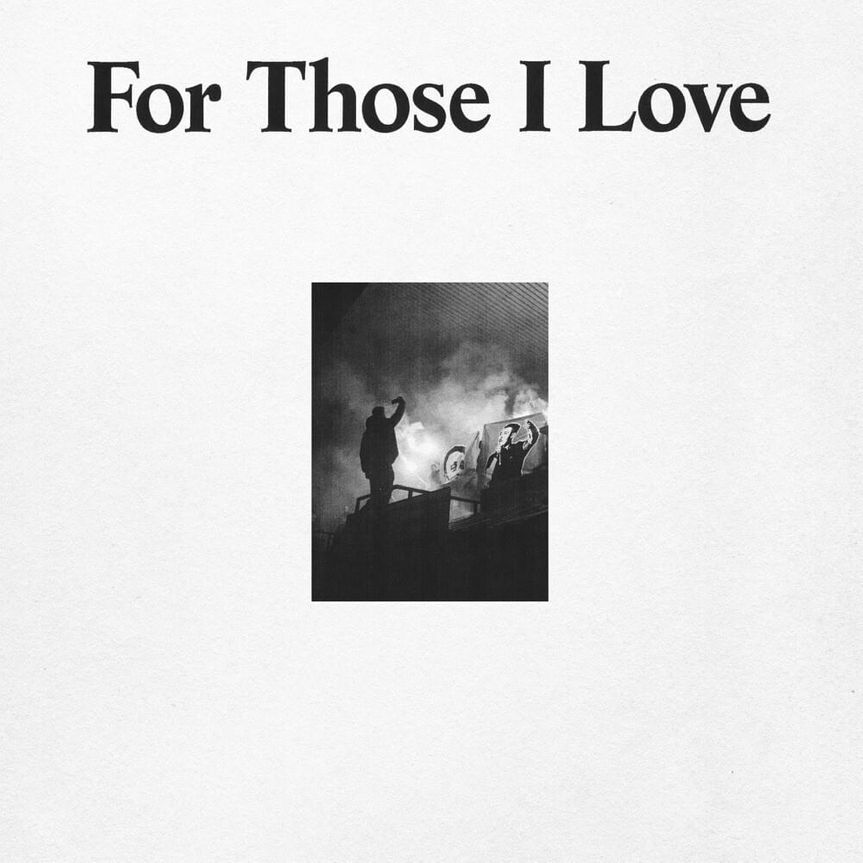
For Those I Love Font
ElectronicFor Those I Love is the debut album of Irish rapper and producer David Balfe, released in March 2021 through September Recordings.
The album title is in Life Bold font, which is an elegant roman face designed by Wilhelm Bilz and Francesco Simoncini. You can learn more about the font here.